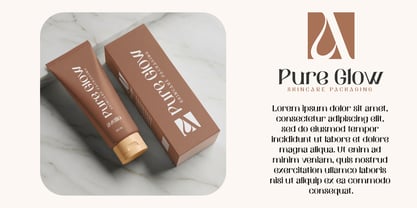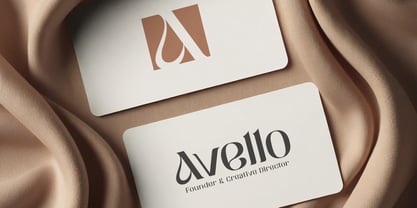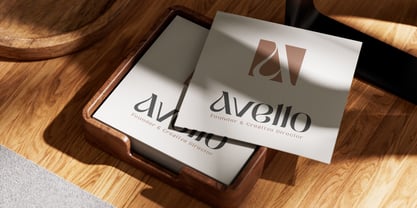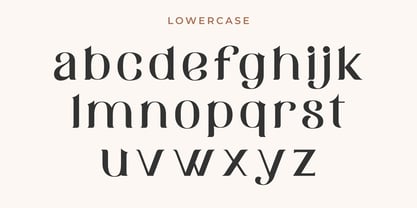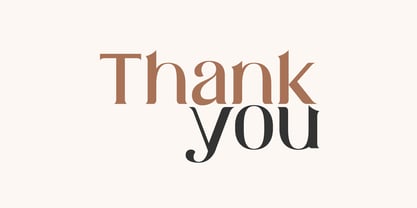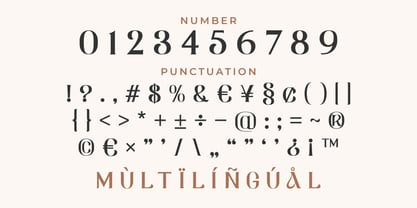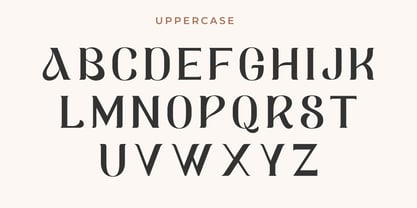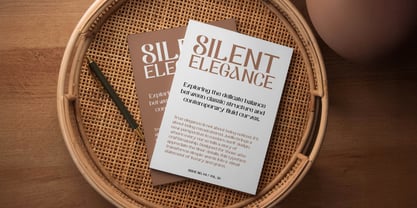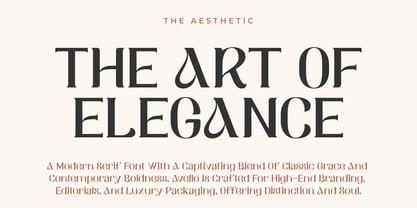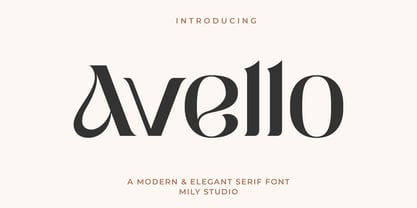
Avello
AVELLO — The Epitome of Masculine Elegance AVELLO is a sophisticated serif typeface meticulously crafted for those who demand authority and refinement. Inspired by the timeless architecture of luxury and the sharp precision of high-end tailoring, AVELLO redefines the modern classic aesthetic with its bold presence and elegant verticality. Design Philosophy At its core, AVELLO balances strength with grace. Its high-contrast structure and razor-sharp serifs command immediate attention, making it an ideal choice for brands that want to convey power, heritage, and exclusivity. Whether it’s for a luxury automotive brand, a premium fragrance, or an elite law firm, AVELLO brings an air of "quiet luxury" that is both commanding and sophisticated. Key Features: Prestigious Presence: Perfect for high-fashion headlines, luxury editorial spreads, and prestigious brand identities. Refined Precision: Every stroke and curve is designed with a meticulous eye for proportion, ensuring flawless legibility in both large-scale displays and fine print. Versatile Application: While inherently masculine, its clean lines allow it to adapt seamlessly across various high-end industries, from cosmetics to corporate signatures. Comprehensive Character Set: Includes a full range of uppercase and lowercase letters, precise numerals, and extensive punctuation. Multilingual Support: Ready for global reach with support for multiple languages. Best Suited For: Luxury Packaging & Perfumery Editorial Design & High-End Magazines Corporate Identity & Stationery Boutique Logos & Fashion Branding Elevate your design to a new level of class. Choose AVELLO for a timeless, authoritative, and truly exquisite typographic experience.